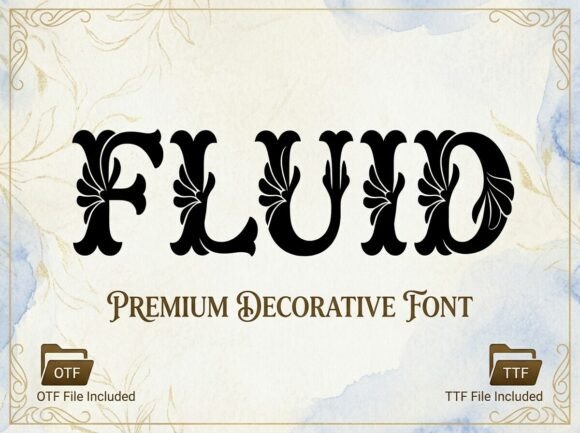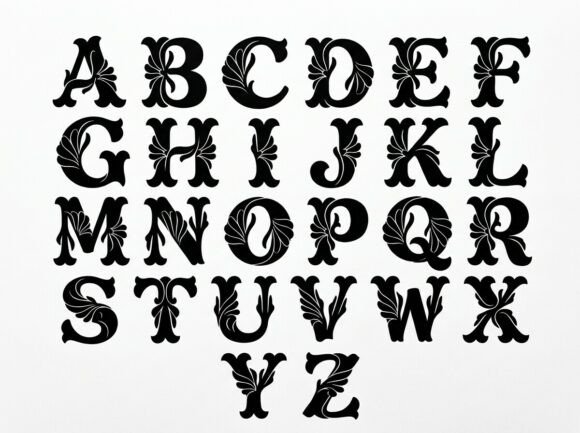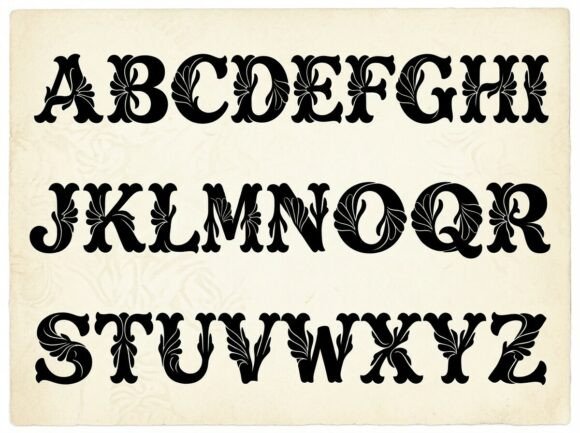
Introducing Fluid Font: A Stunning Decorative Display Font
Are you tired of using the same old fonts for your designs? Do you want to add a touch of uniqueness and creativity to your work? Look no further than Fluid Font, a stunning decorative display font designed to be the center of attention. With its unique artistic elements and strong visual personality, this font is perfect for creators who want to break away from the ordinary.
What Makes Fluid Font Special?
Fluid Font is a versatile font that is perfect for bold headlines, artistic logos, and creative packaging. Its unique design elements and strong visual personality make it stand out from other fonts, giving your work a professional and polished finish. Whether you’re a designer, craftsperson, or DIY enthusiast, Fluid Font is the perfect choice for anyone looking to add a touch of creativity to their work.
⚠️ IMPORTANT NOTE BEFORE PURCHASE: Fluid Font is an ALL-CAPS (Uppercase Only) display typeface. This means it does not include lowercase letters. It is specifically designed for high-impact headlines, logos, and decorative initials where every letter is a work of art. This unique design approach allows for a level of detail and craftsmanship that is unparalleled in traditional fonts.
Fluid Font is perfect for designers and crafters who want to add a touch of creativity to their work. With its unique artistic elements and strong visual personality, this font is sure to make your designs stand out. Whether you’re creating a logo, brochure, or packaging, Fluid Font is the perfect choice. Its versatility and professional finish make it ideal for a wide range of design applications.
- Unique and Creative Design: Fluid Font features unique artistic elements and a strong visual personality, making it perfect for creators who want to break away from the ordinary.
- Versatile: Fluid Font is perfect for bold headlines, artistic logos, and creative packaging, making it a versatile font for a wide range of design applications.
- Professional Finish: Fluid Font maintains a professional and polished finish, making it ideal for designers and crafters who want to create high-quality designs.
Fluid Font is a stunning decorative display font that is perfect for creators who want to add a touch of uniqueness and creativity to their work. With its unique artistic elements and strong visual personality, this font is sure to make your designs stand out. Its versatility, professional finish, and ease of use make it ideal for designers and crafters who want to create high-quality designs. So why wait? Purchase Fluid Font today and take your designs to the next level!